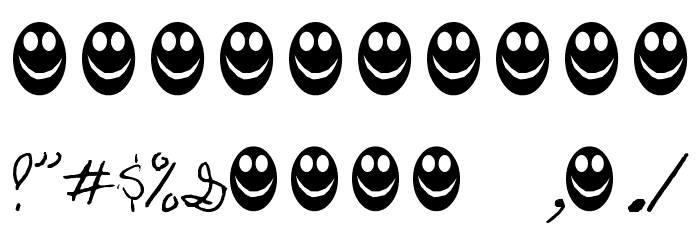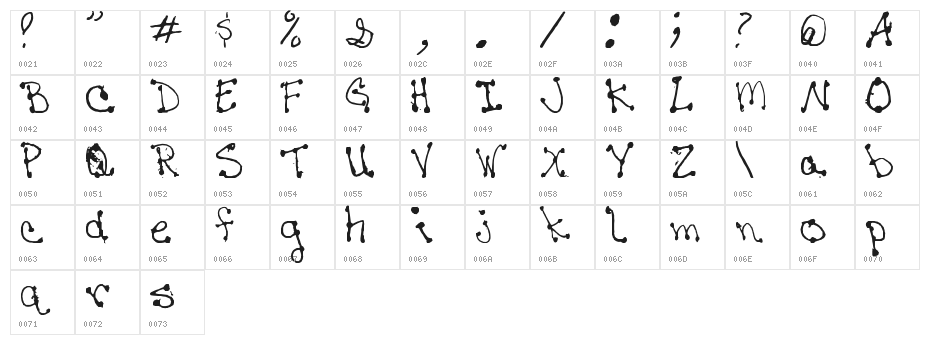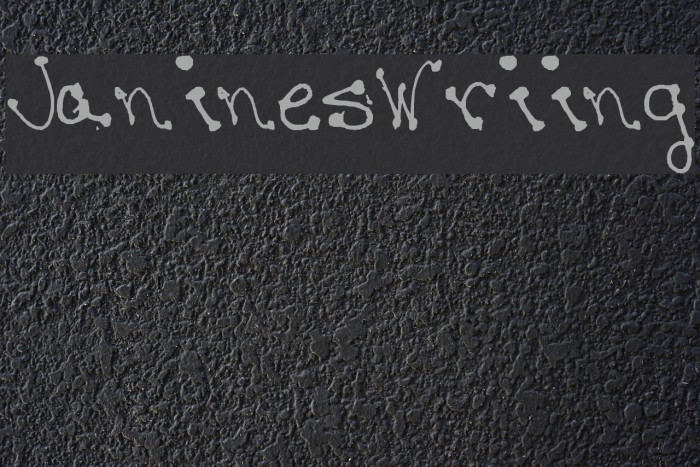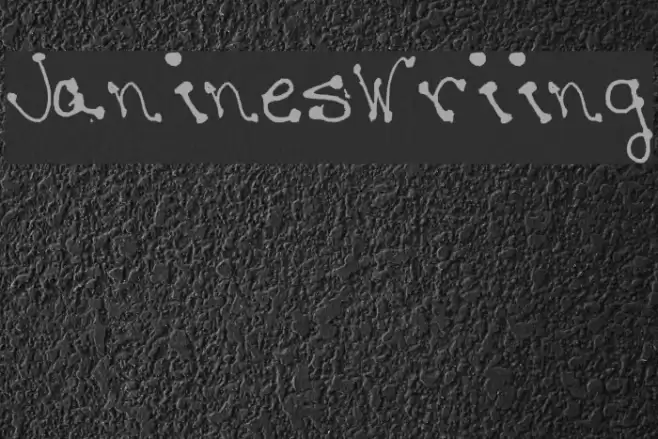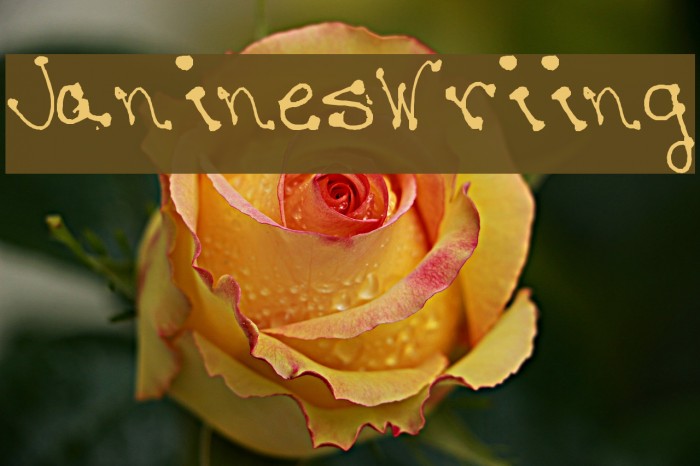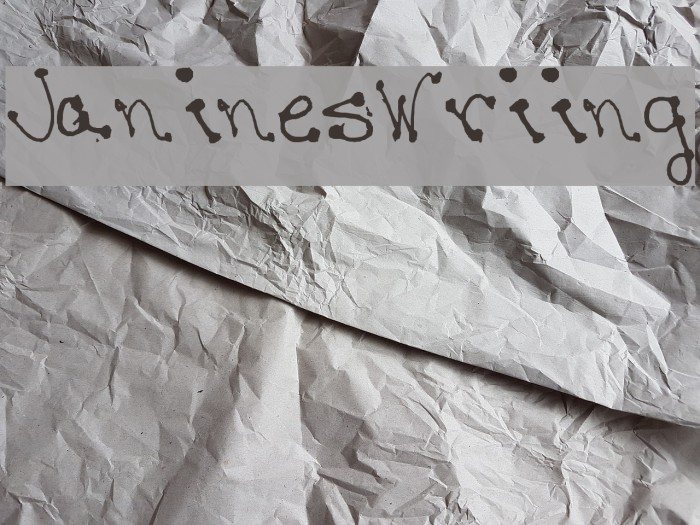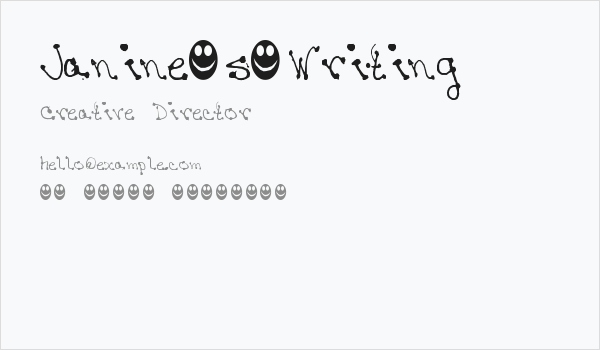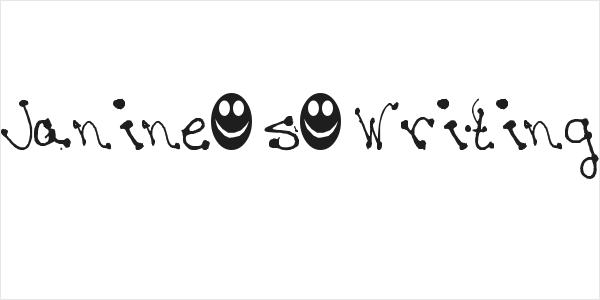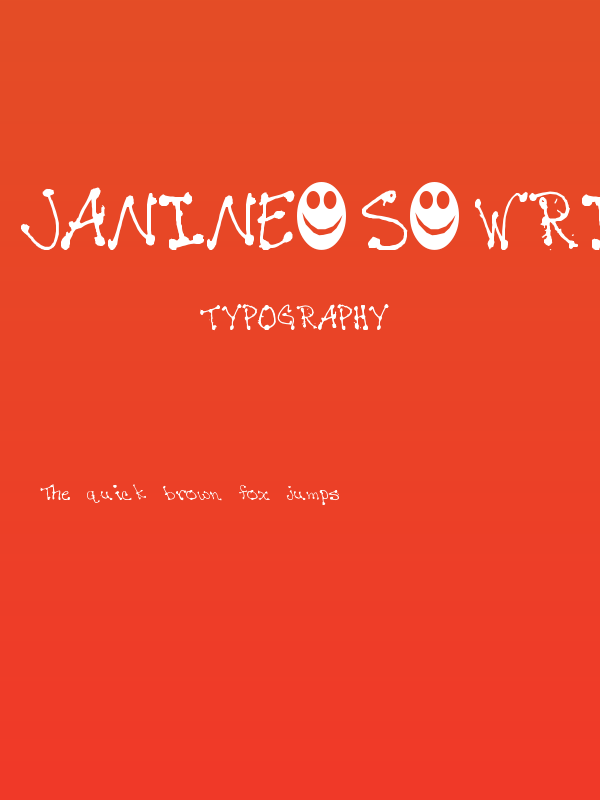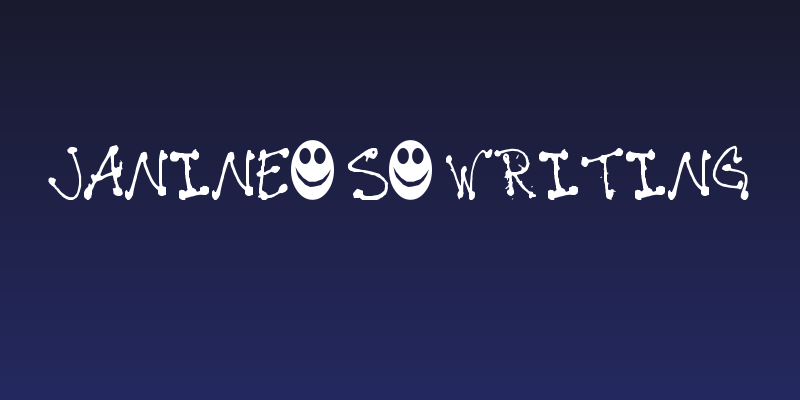
Janine-s-Writing Font
Janine-s-Writing Description
This font exhibits a playful and whimsical style, characterized by its irregular, hand-drawn appearance. The letters have a unique, ink-splattered effect, giving them a dynamic and artistic feel. Uppercase and lowercase letters maintain a consistent style, with varying stroke thickness that adds to the font's charm. The inclusion of smiley faces as special characters enhances its playful nature. This font is ideal for projects that require a fun and informal touch, such as children's books, greeting cards, or creative posters.
| Proposed Projects | Children's books, greeting cards, creative posters, playful branding. |